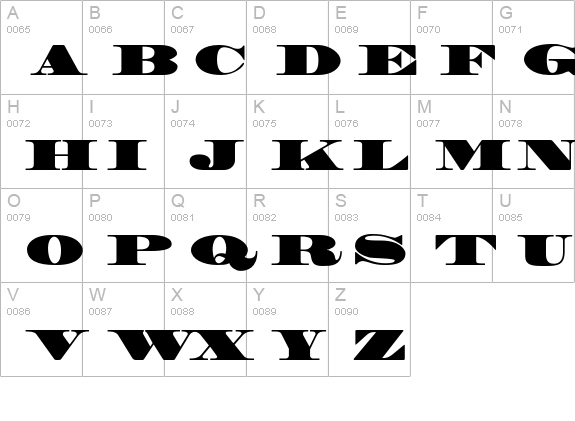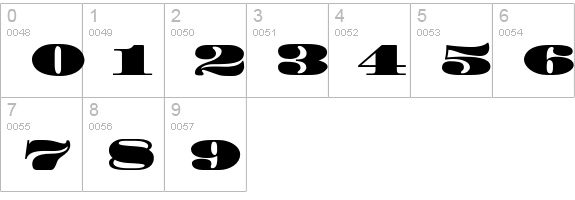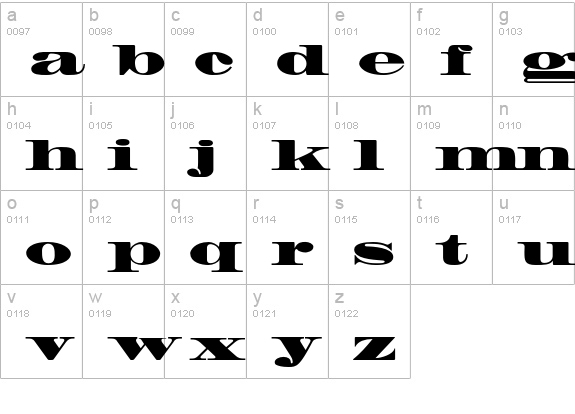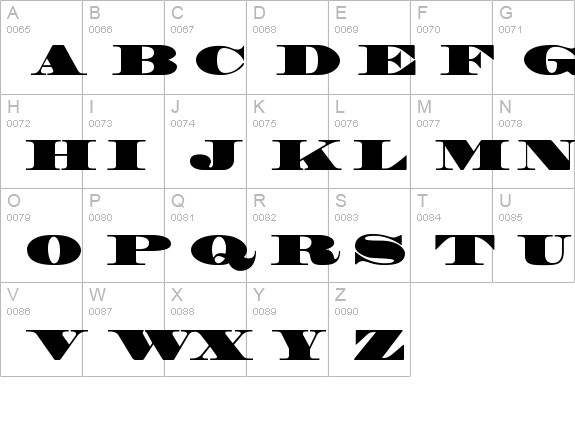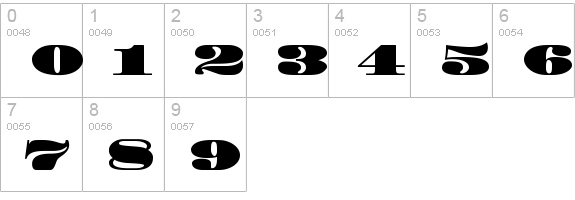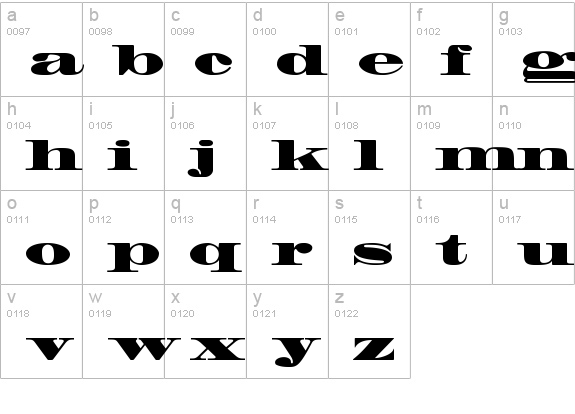
Madrone Font Details
Madrone font is a stunning typeface that exudes elegance and sophistication. With its graceful curves and refined letterforms, this font captures the essence of timeless beauty. Designed with meticulous attention to detail, Madrone font is perfect for adding a touch of class to any project. What sets Madrone font apart is not just its aesthetic appeal, but also the fact that it is freely available to download. This means that anyone can enjoy the beauty and versatility of this font without any limitations. Whether you're a professional designer looking to elevate your work or a casual user in search of a stylish font for personal projects, Madrone font is the ideal choice. To access Madrone font, simply head over to FontsMarket.com, where you can download it for free. This convenient accessibility makes Madrone font an excellent option for individuals and businesses alike. Whether you're designing a logo, creating a website, or crafting a brochure, Madrone font will effortlessly elevate your design with its timeless charm. With its wide range of weights and styles, Madrone font offers endless possibilities for creativity. Whether you prefer a bold and impactful look or a more delicate and subtle aesthetic, this font has you covered. Its versatility allows it to be seamlessly incorporated into various design projects, from branding and advertising to invitations and packaging. Madrone font is not only visually appealing, but it also ensures readability and legibility. Its carefully crafted letterforms make it easy to read even at small sizes, ensuring that your message is effectively conveyed to your audience. This attention to detail sets Madrone font apart and makes it an excellent choice for any project that requires both style and functionality. In conclusion, Madrone font is a truly remarkable typeface that combines elegance, versatility, and accessibility. Its availability for free download at FontsMarket.com makes it an invaluable resource for designers and enthusiasts alike. Whether you're looking to add a touch of sophistication to your next project or simply appreciate the beauty of typography, Madrone font is a must-have in your font collection.